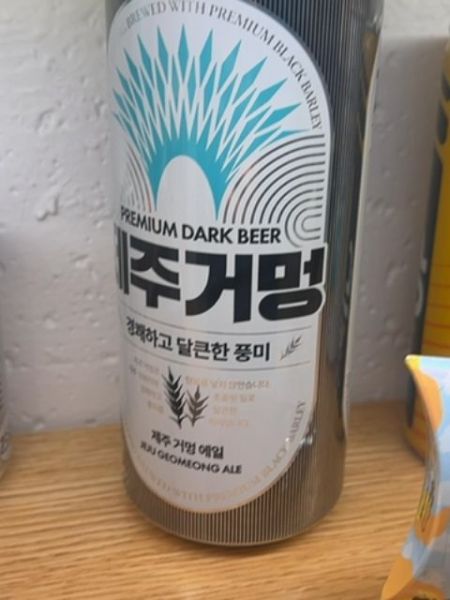
Jeju Geomong Ale
Premium dark beer brewed with premium black barley.
South Korea
The typography on the packaging employs a bold sans-serif font, providing a modern and robust appeal suitable for a premium product. The mix of large Korean characters and smaller English text is balanced, with contrasting weights drawing attention to the product's name and key features.
The packaging features a sleek design with a predominantly metallic silver background and an eye-catching turquoise abstract graphic at the top. The label has a modern, clean layout, enhancing the premium feel of the product.
- Contains premium black barley.
- Originates from Jeju, a popular island in South Korea.
- Part of a range of craft beers from the region.